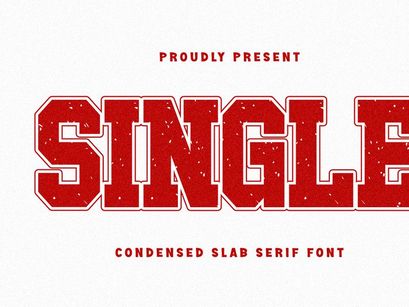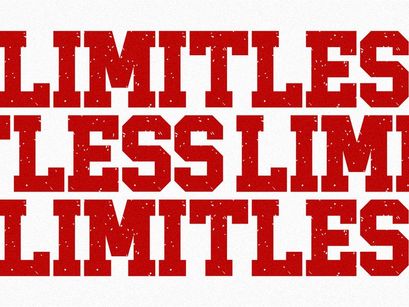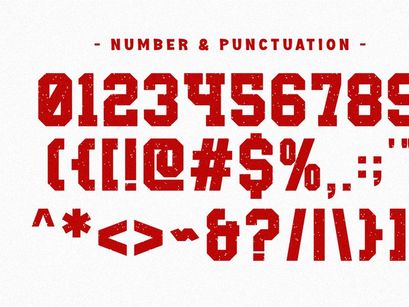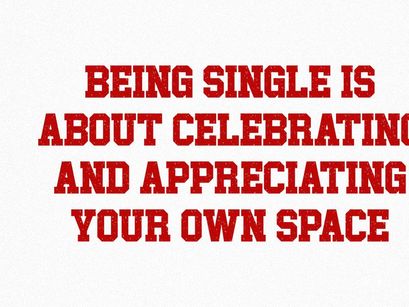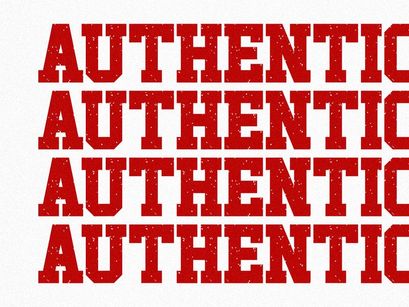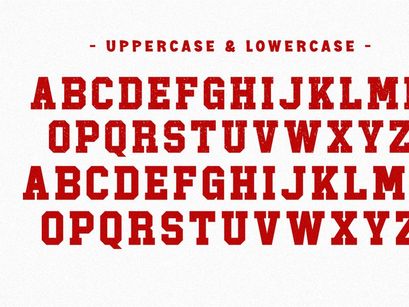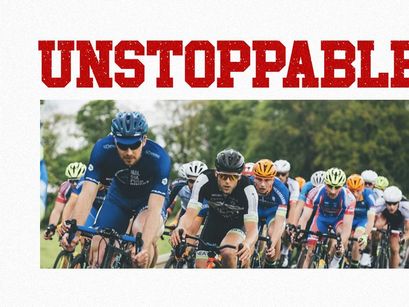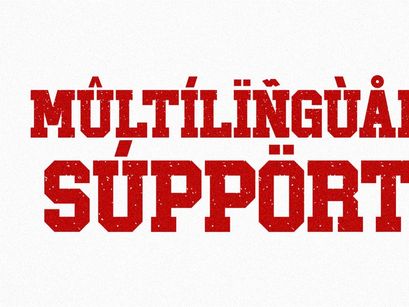
Single - Condensed Slab Serif FontPremium
Single - Condensed Slab Serif Font
Single
Single is a powerful and rugged Condensed Slab Serif font that perfectly embodies the classic spirit of collegiate and athletic design. Featuring a bold, blocky structure with a vintage distressed texture and a striking outline style, this typeface is ideal for high-impact sports branding, varsity-themed apparel, team logos, and commanding headlines. This all-caps font delivers an authentic, old-school visual identity that is essential for merchandise and promotional materials demanding a strong, energetic presence.